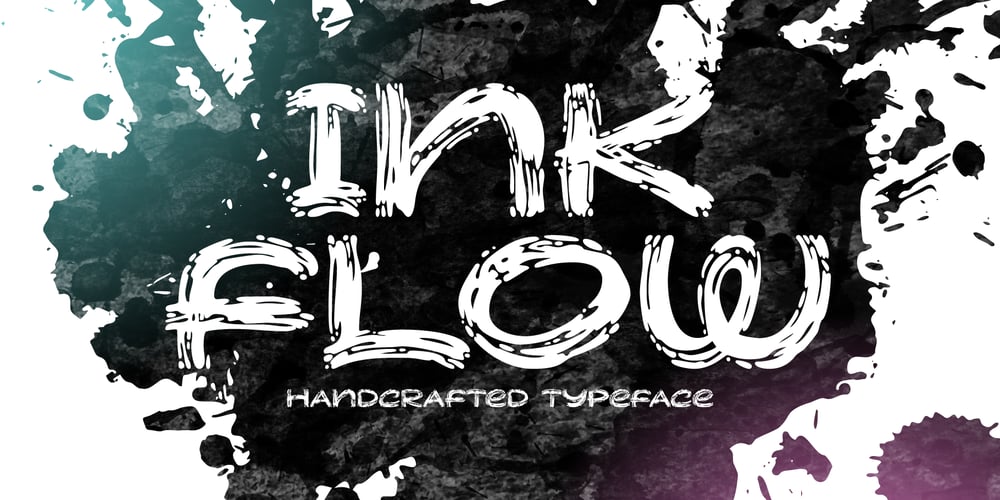
Ink Flow Font Family was designed by Gleb Guralnyk and published by Gleb Guralnyk. Ink Flow contains 1 styles and family package options. Hi, presenting a graffiti style font – Ink Flow. It’s a handcrafted all caps font with unique brush stroke shape. This font supports most of the European languages, please check out the screenshot with all available characters.Thank you and wish you a peaceful sky!